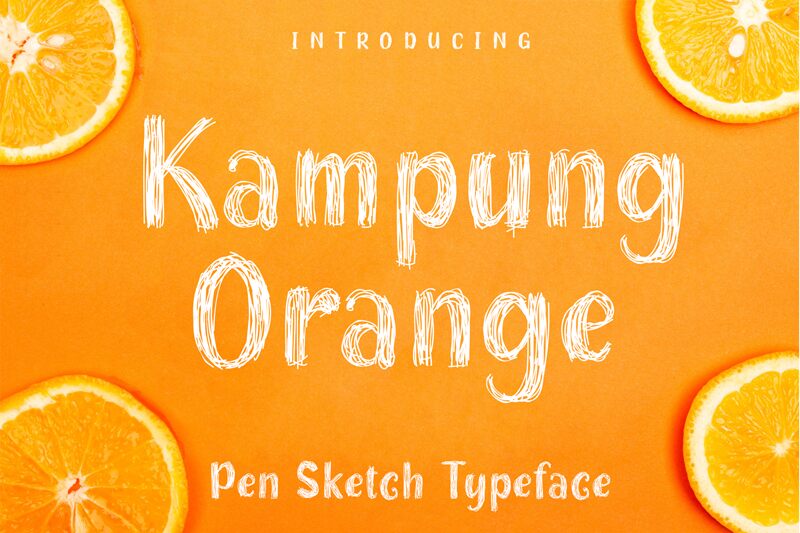
KampungOrange
Kampung Orange, crafted by Royaltype, is a bold and daring script font that exudes a unique sense of edgy creativity. Its trash style is perfect for projects that require a daring and unconventional look, such as album covers, streetwear branding, or even rebellious advertising campaigns. This typeface's thick lettering makes it ideal for eye-catching headlines or bold logos that demand attention. Whether you're looking to add some edge to your designs or simply want to stand out from the crowd, Kampung Orange's semi-bold font and trash style are sure to impress.